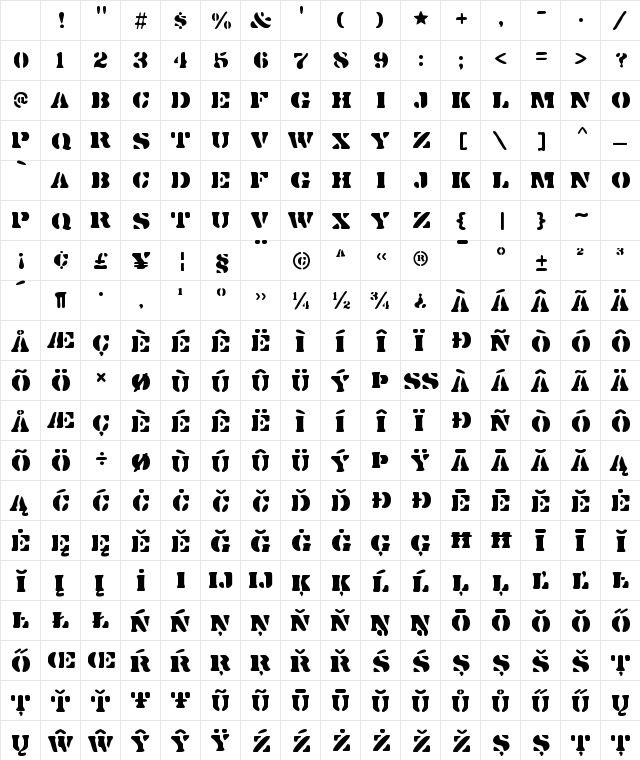
Complete Dirty Baker's Dozen Regular glyph index. Displaying only characters natively supported by Dirty Baker's Dozen Regular font.
Dirty Baker's Dozen is a composed and adaptable typeface that performs quietly and consistently across a wide range of design contexts.